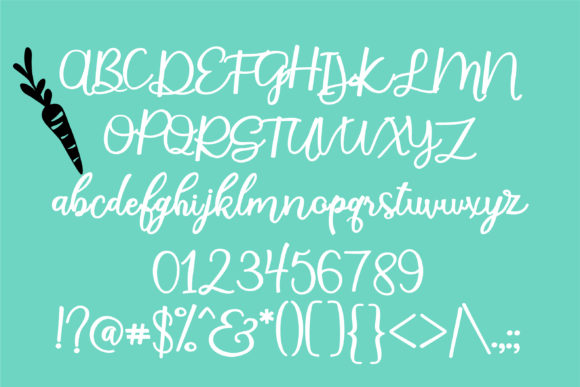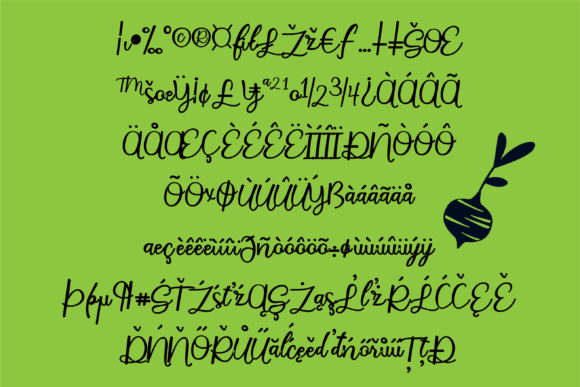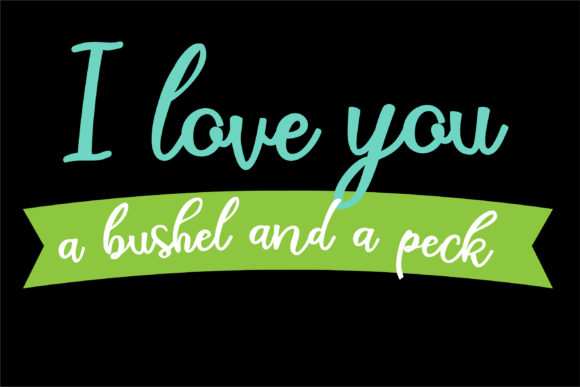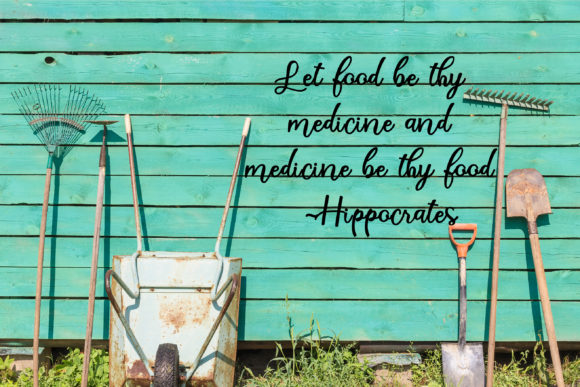
Bushel and a Peck Font
About Bushel and a Peck Font
Bushel and a Peck is a stunning and unique handwritten font with a cool vibe. Get inspired by this hand-crafted typeface!